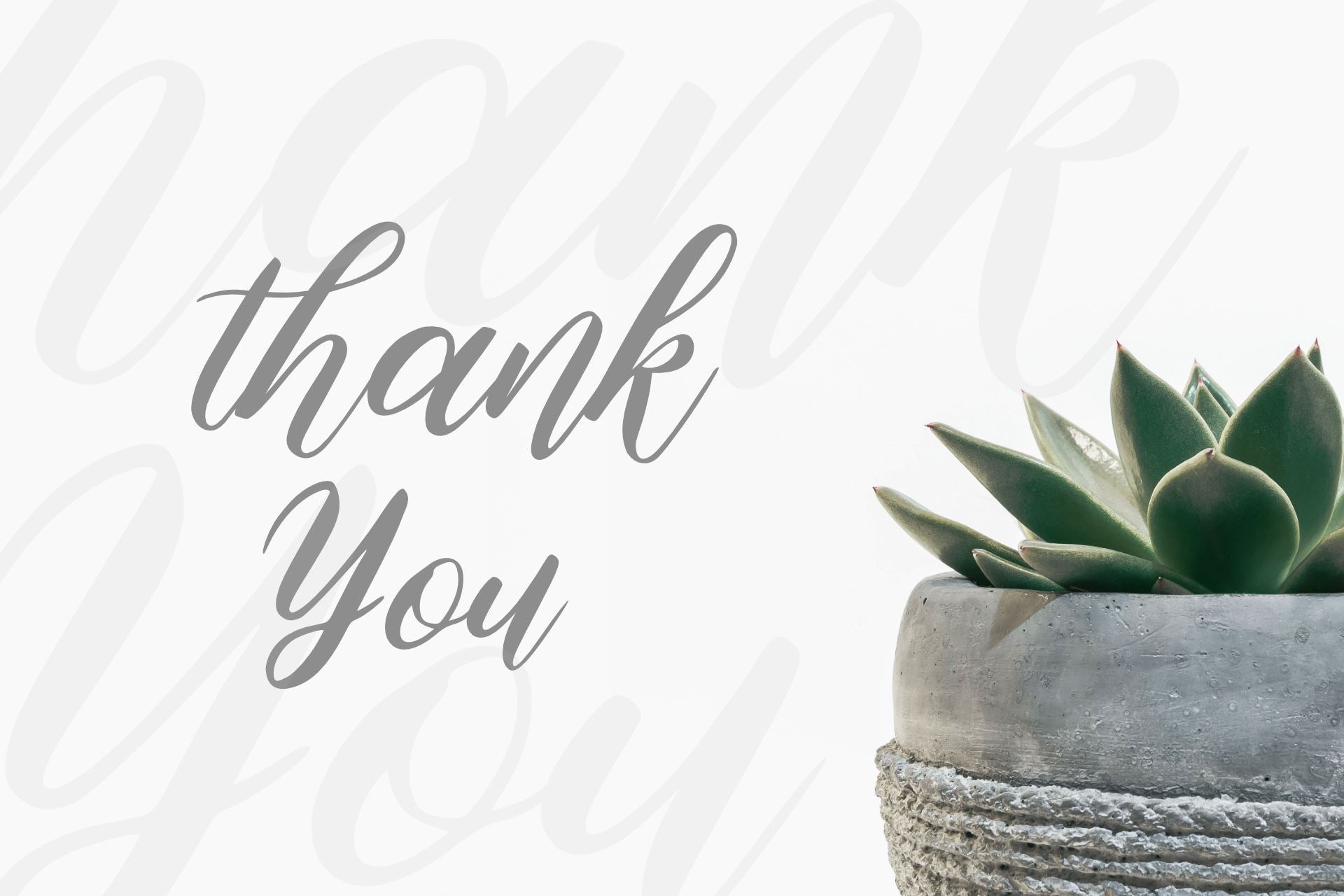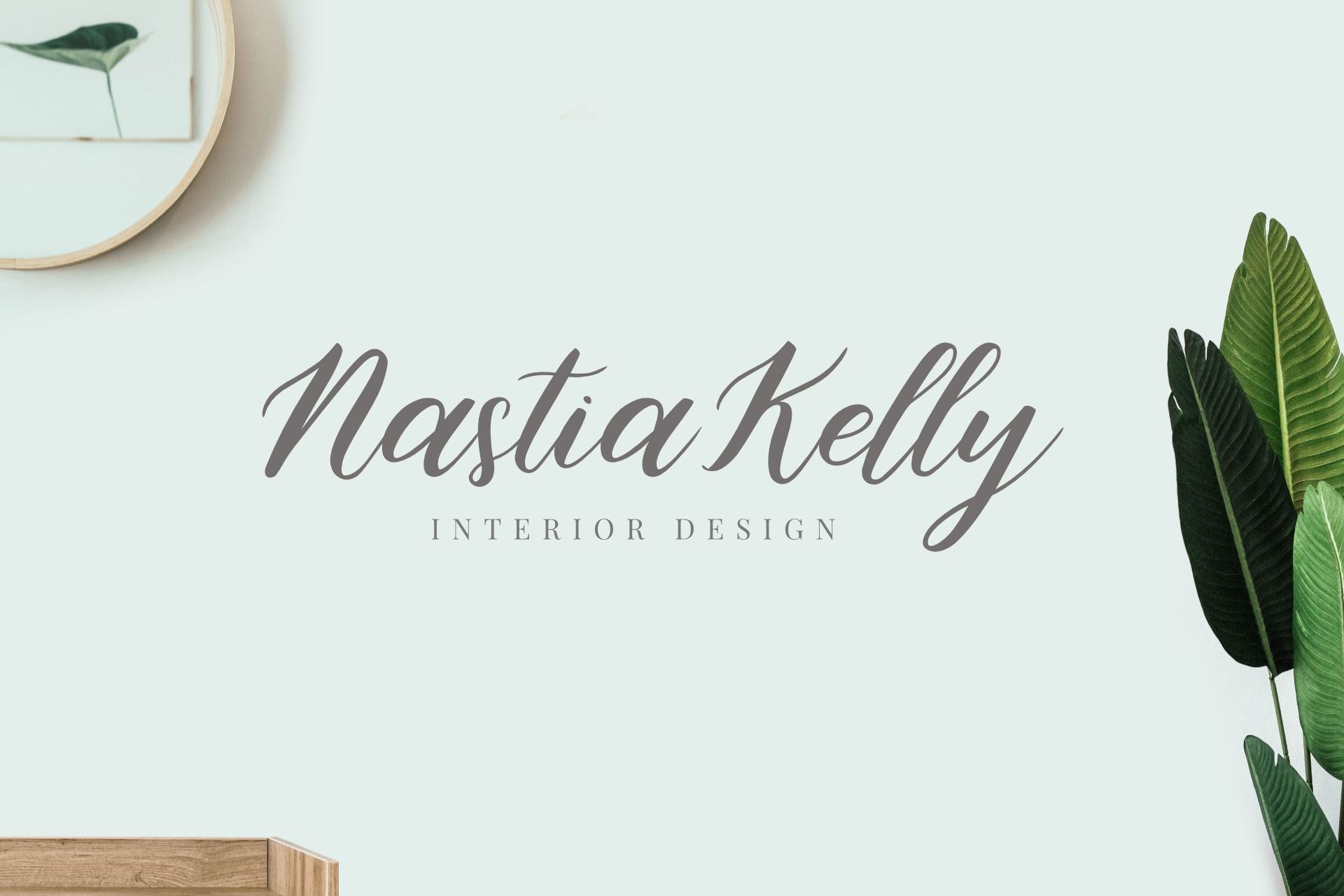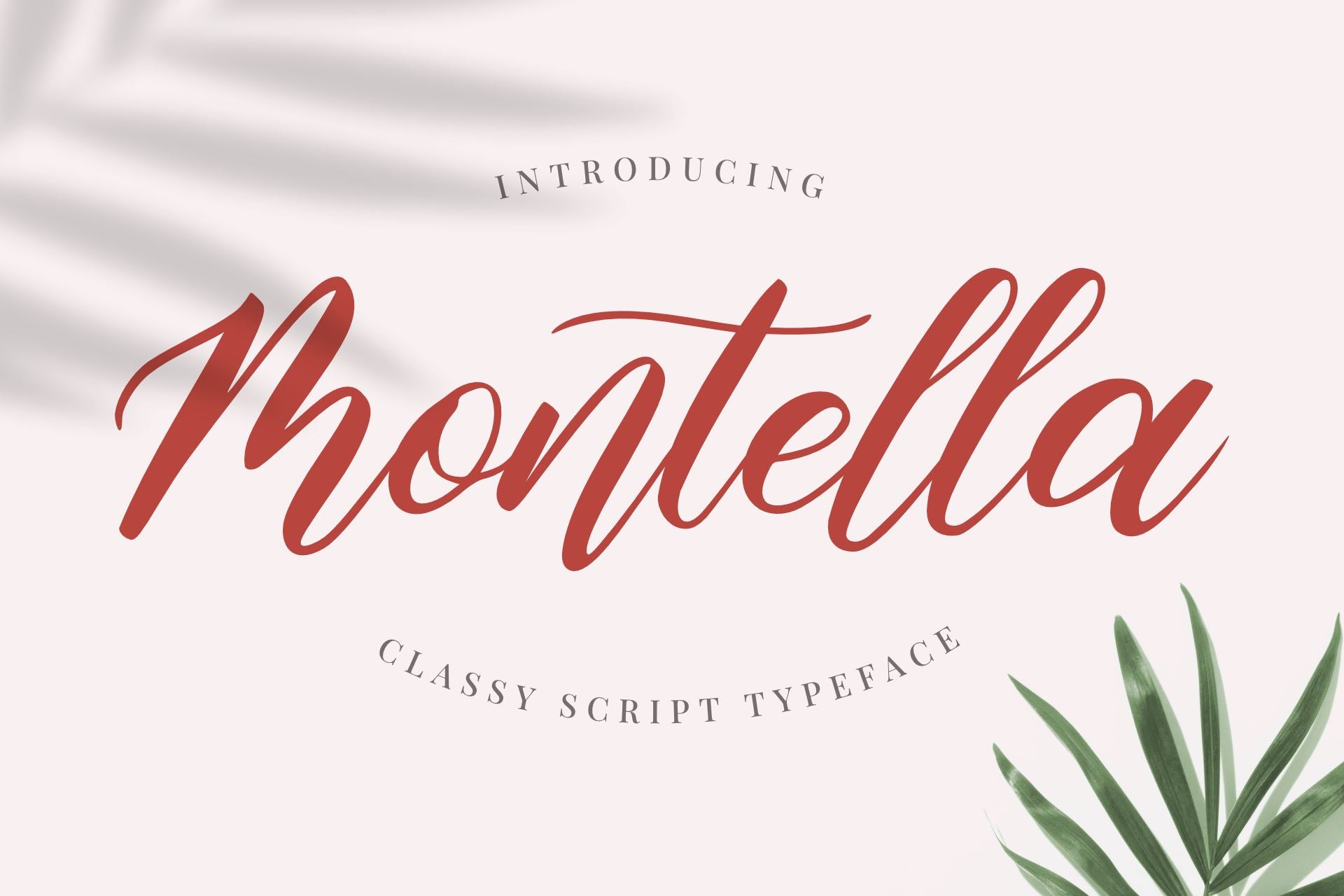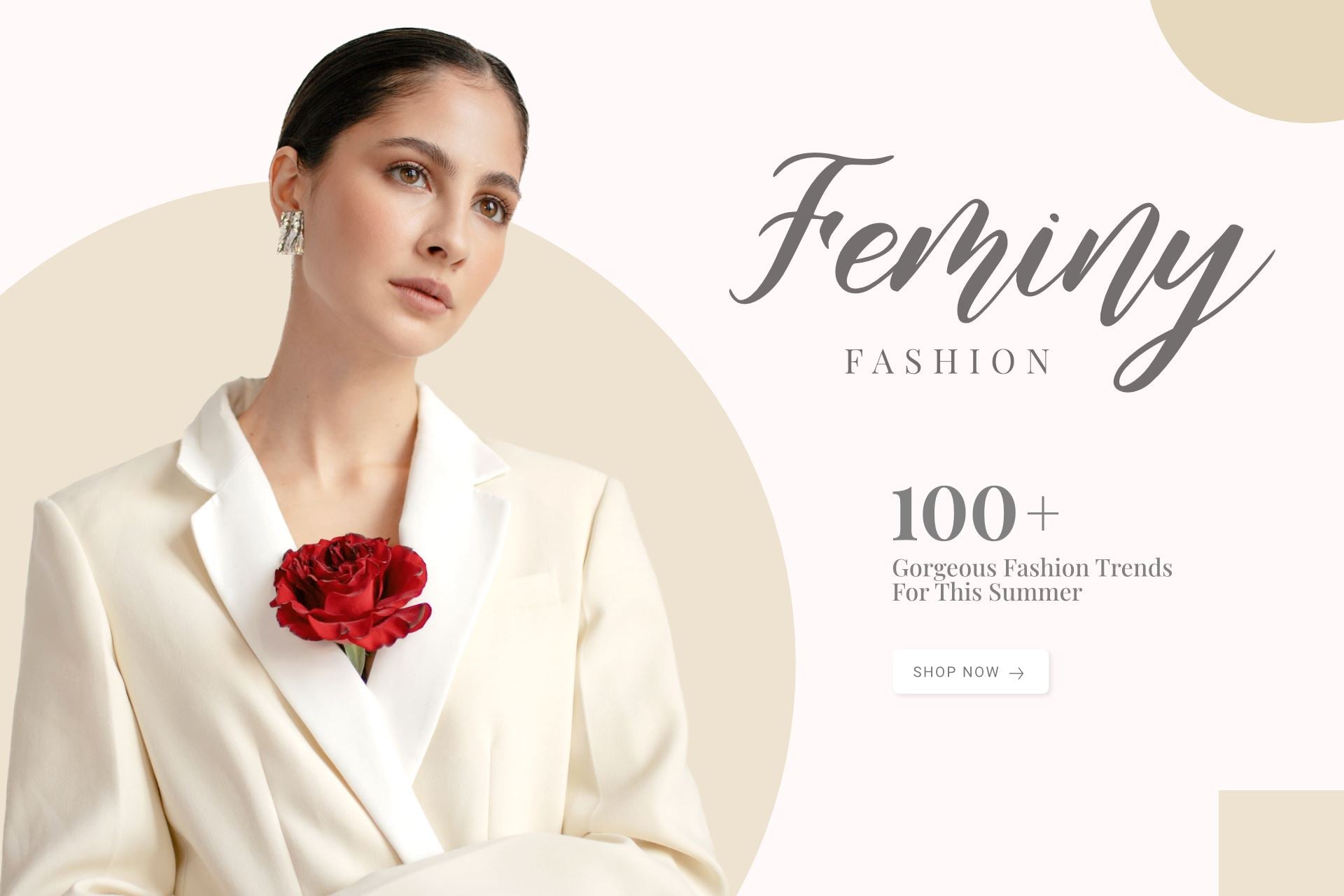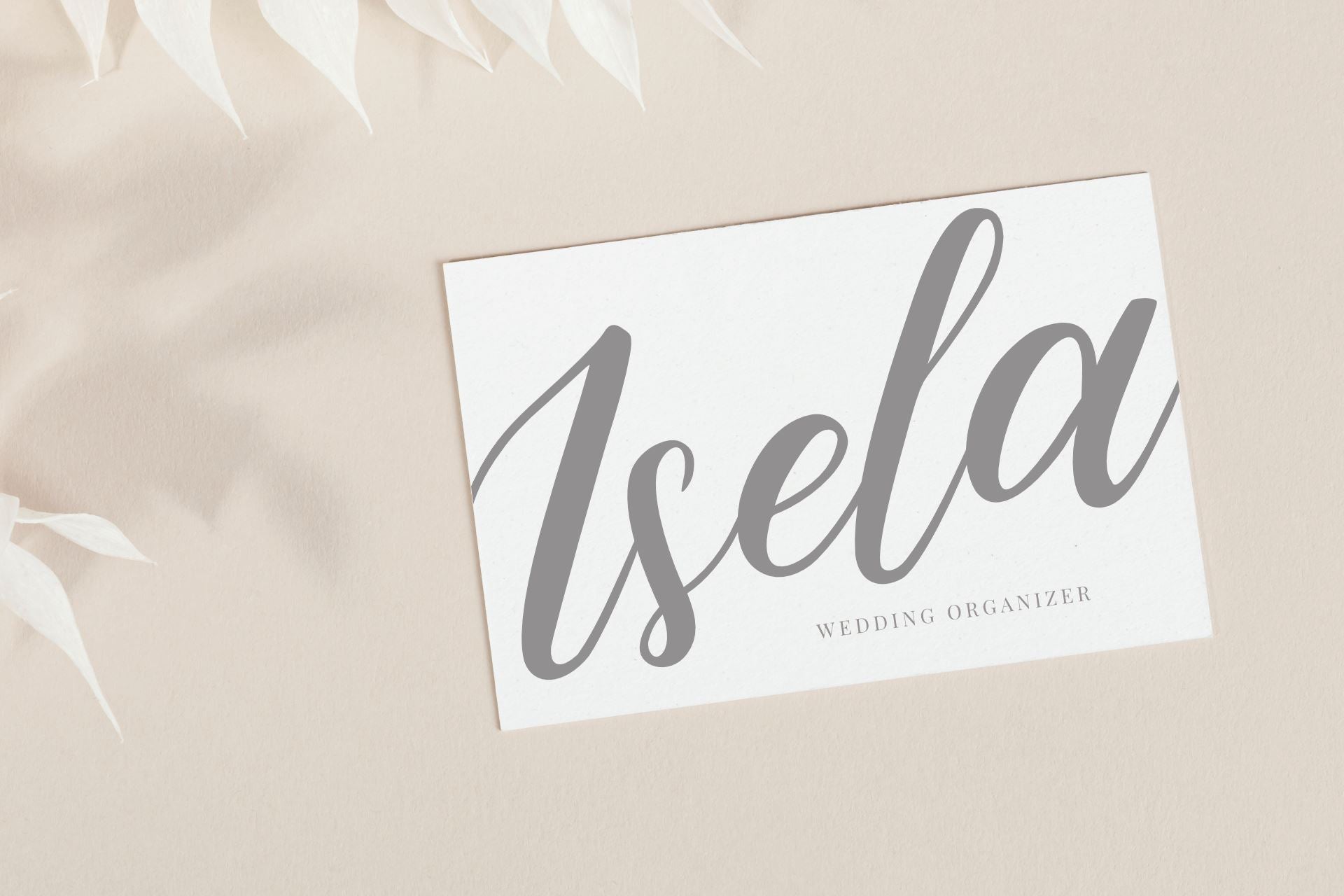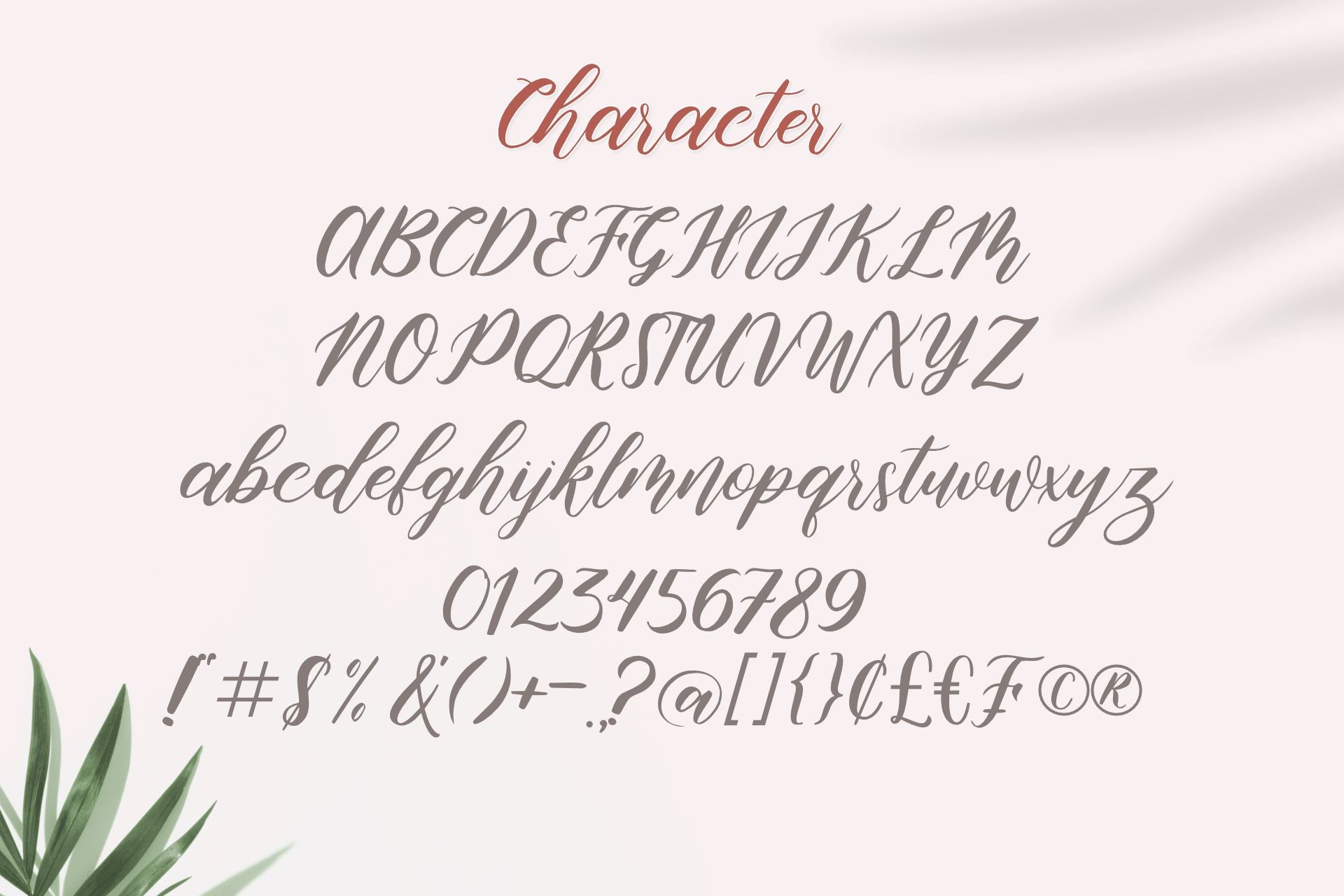
HomeScript FontsMontella Script Script Fonts Montella Script FacebookXPinterestWhatsApp 1 of 6 ... ... ... ... ... ... About Montella Script Montella is a lovely script font featuring charming, playful characters that seem to dance along the baseline. Add this font to your most creative ideas, and notice how it makes them stand out! DOWNLOAD NOW People also explored Ranice Font Prim Rose Dillemma Font Mother May I Font Coconut Palm Font Blackout Font Winter Harmony Font Honey Font Delilah 212 0 TagsMontella Script Previous articleMegilanNext articleQuantum Script Font LEAVE A REPLY Cancel reply Comment: Please enter your comment! Name:* Please enter your name here Email:* You have entered an incorrect email address! Please enter your email address here Website: Save my name, email, and website in this browser for the next time I comment. Personal Use Free Green Fuz Personal Use Free Read more about this font Archeology Personal Use Free Read more about this font Rozalyn Personal Use Free Read more about this font New Amsterdam Personal Use Free Read more about this font BLOG How to Cut Any Font on Cricut: Convert a Font to SVG (Free) Turn any font into a clean SVG so it cuts crisp on Cricut - a quick 3-step workflow using a free font-to-SVG tool. Free vs Paid Fonts: Why Investing in Premium Fonts Is Worth It Best Fonts for T-Shirt Design – Top 2025 Picks 5 Fonts That Will Dominate Design Trends in 2026